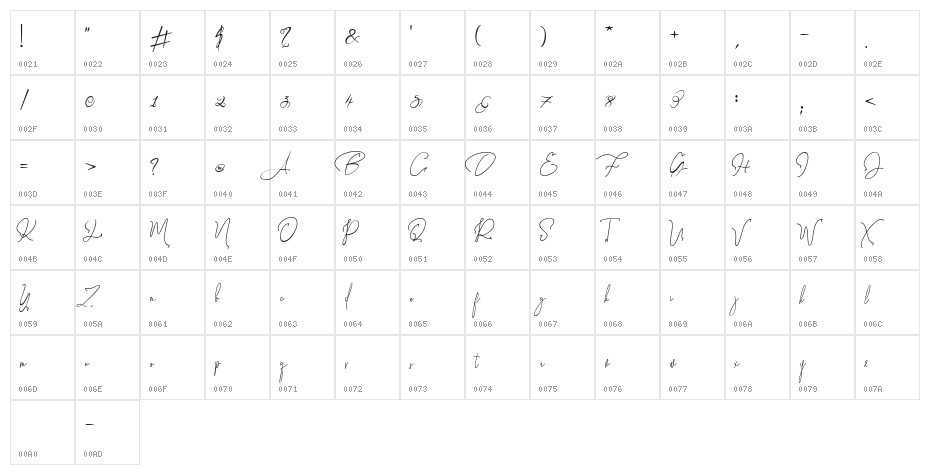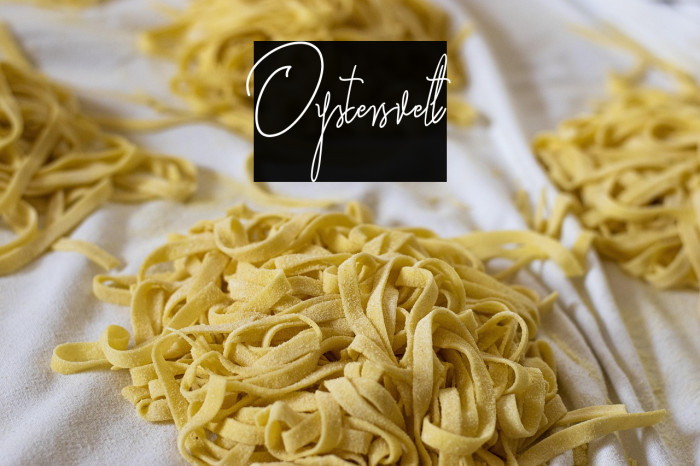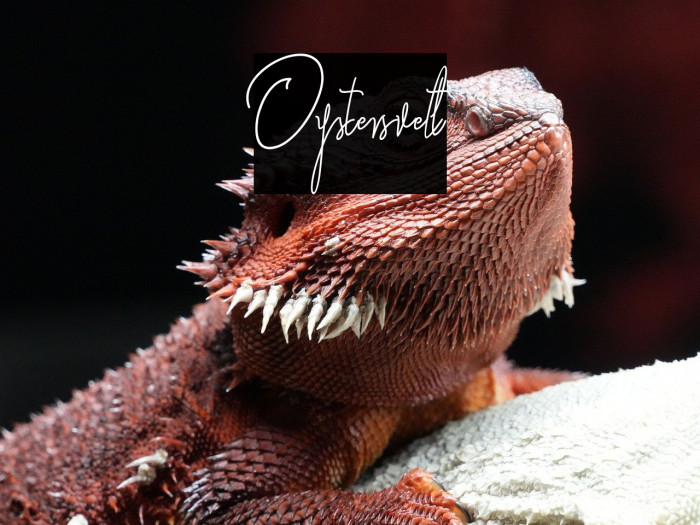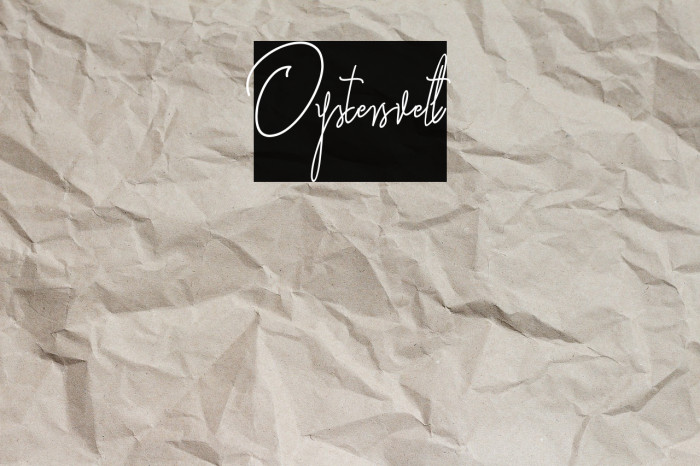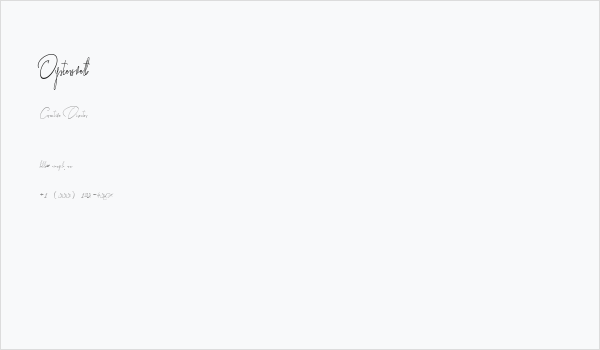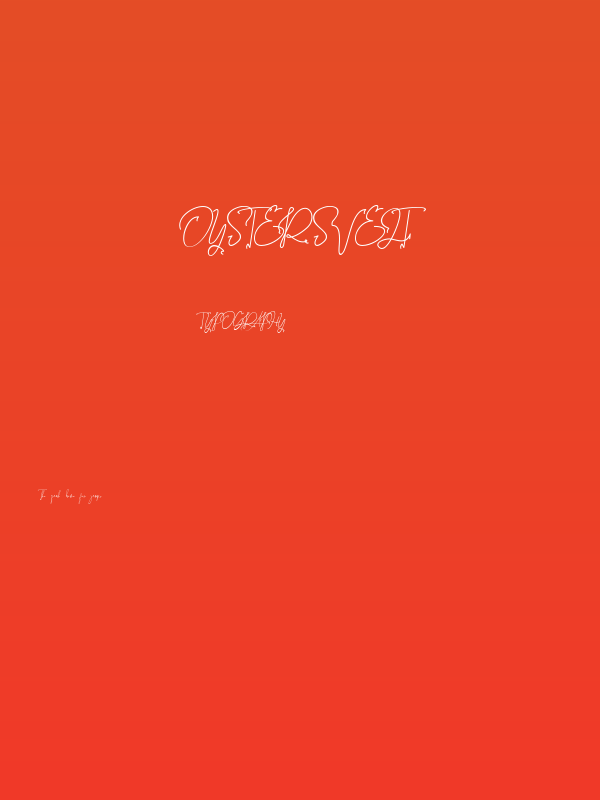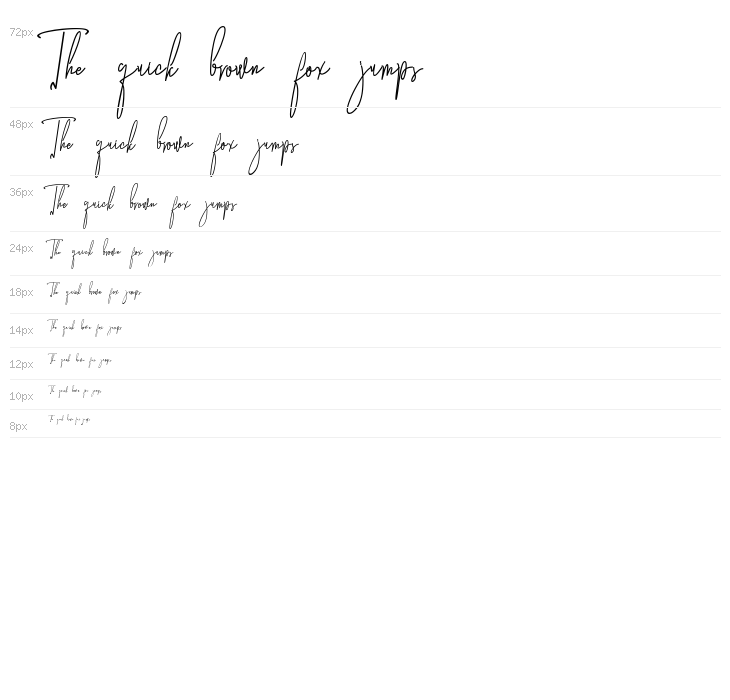
Oystersvelt Font
Oystersvelt Description
This elegant script font features a flowing, cursive style with intricate loops and swirls, giving it a sophisticated and artistic appearance. The uppercase letters are particularly ornate, with exaggerated flourishes that add a sense of grandeur. The lowercase letters maintain a consistent style, with a slightly more restrained elegance. The numerals and special characters are designed to complement the overall aesthetic, maintaining the same fluidity and grace. This font is perfect for projects that require a touch of elegance and creativity, such as wedding invitations, branding, and artistic designs.
| Overall Style | Elegant, Artistic |
| Use Case | Logos, Invitations, Artistic designs |
| Proposed Projects | Ideal for wedding invitations, branding, artistic designs, and elegant stationery. |